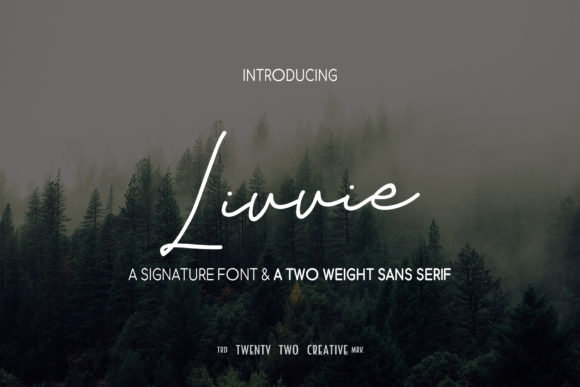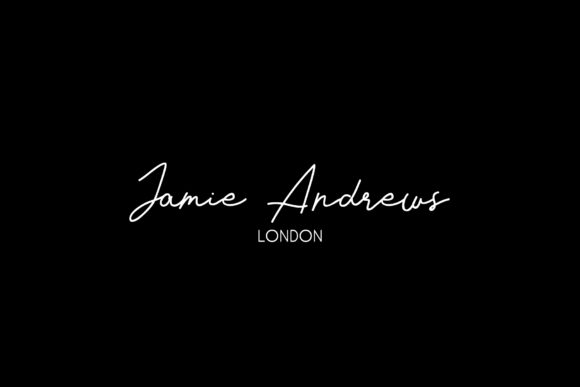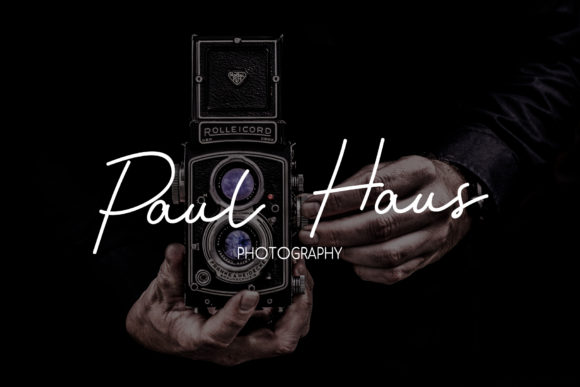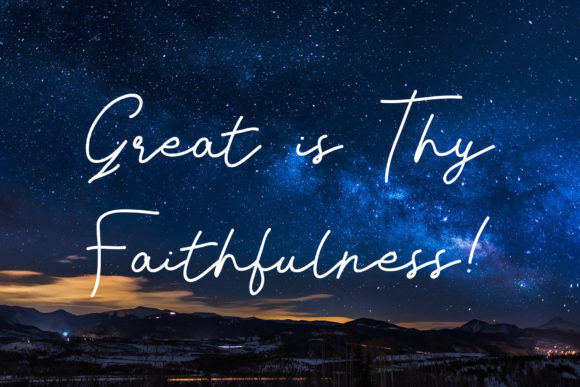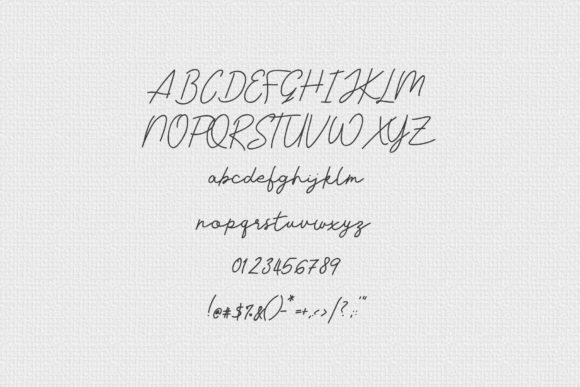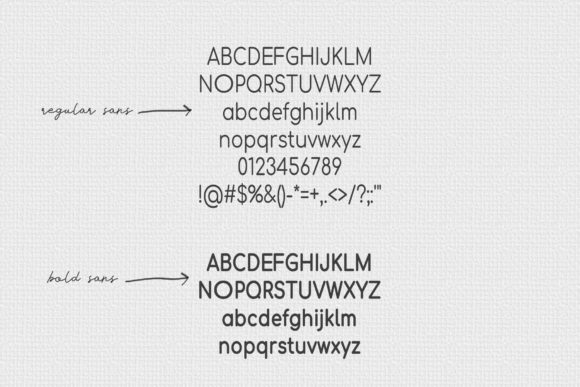
Livvie Duo Font
About Livvie Duo Font
The Livvie is an amazing font duo. It includes an amazing signature version, and a striking sans version which can be combined perfectly. These fonts are complimentary but also bold enough to stand alone. The signature version has clean and simple lines that speak beauty, innocence and quietness.
It’s perfect for logos, wedding invitations, personal branding and stationery. T